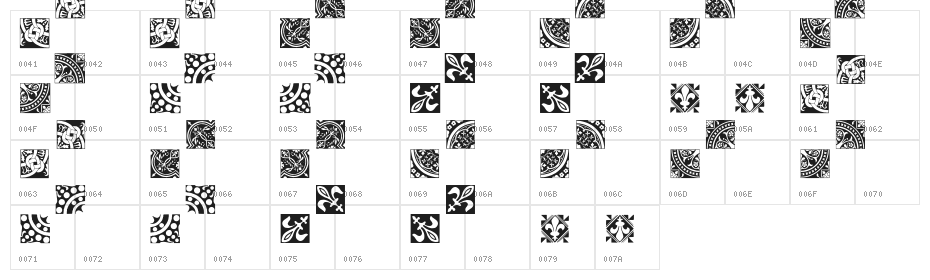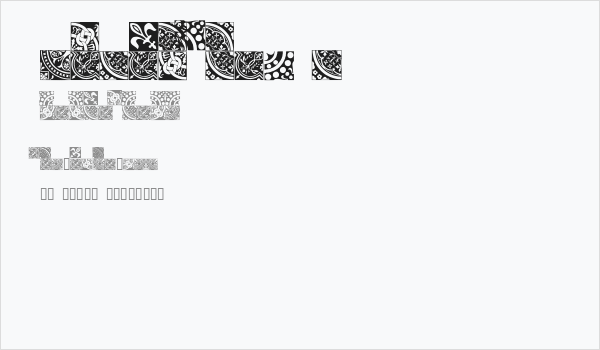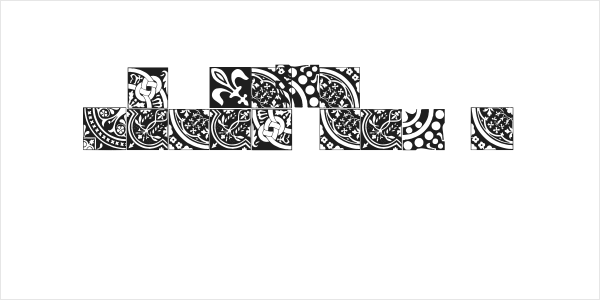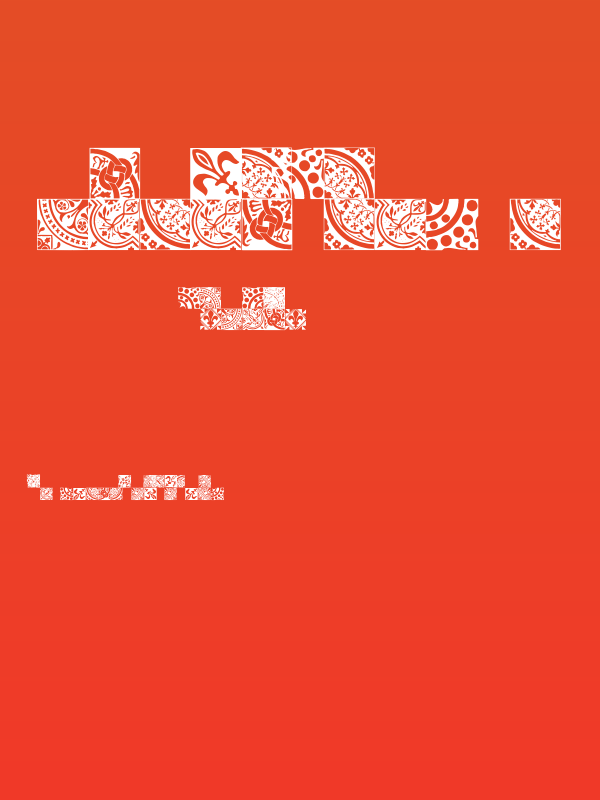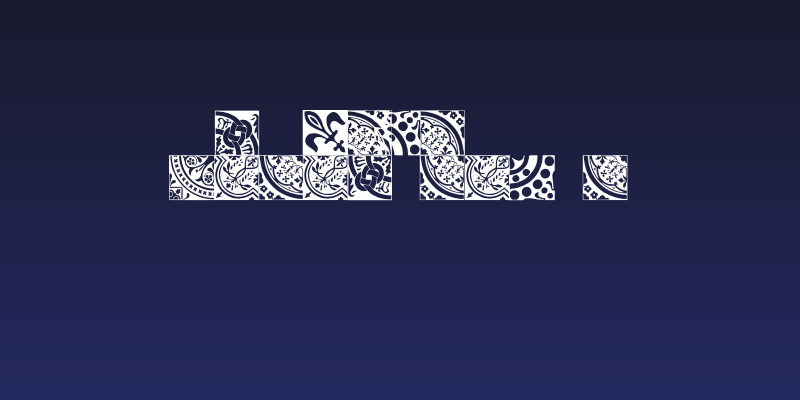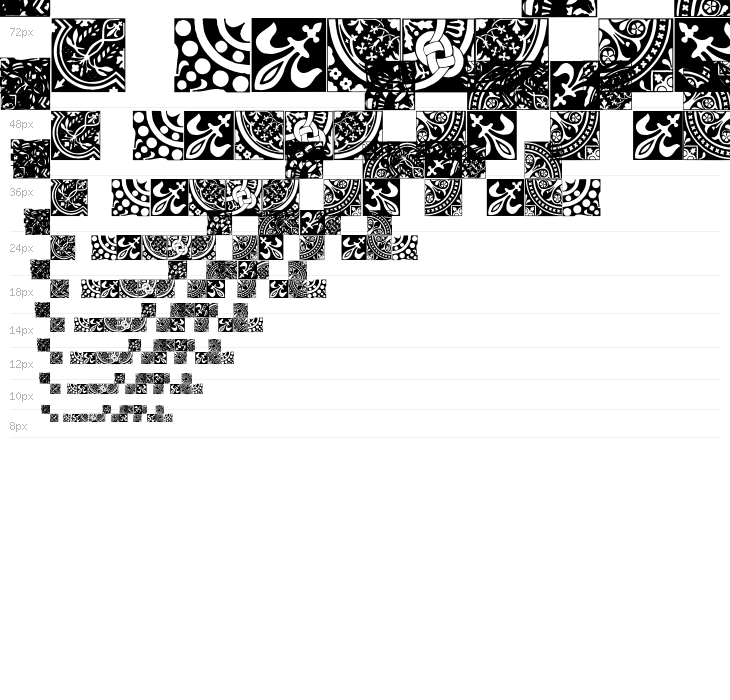
Medieval Tiles I Font
Medieval Tiles I Description
Highly decorative, ornamental set of black and white tile-inspired glyphs with intricate medieval patterns. Each character is represented by a unique square or rectangular tile design, featuring complex geometric and floral motifs. The style is bold and visually dense, with strong contrast between black and white areas.
| Overall Style | Decorative, Medieval, Ornamental |
| Use Case | Logos, Headlines, Decorative elements |
| Proposed Projects | Posters, packaging, branding, book covers, invitations, decorative initials, themed event graphics. |